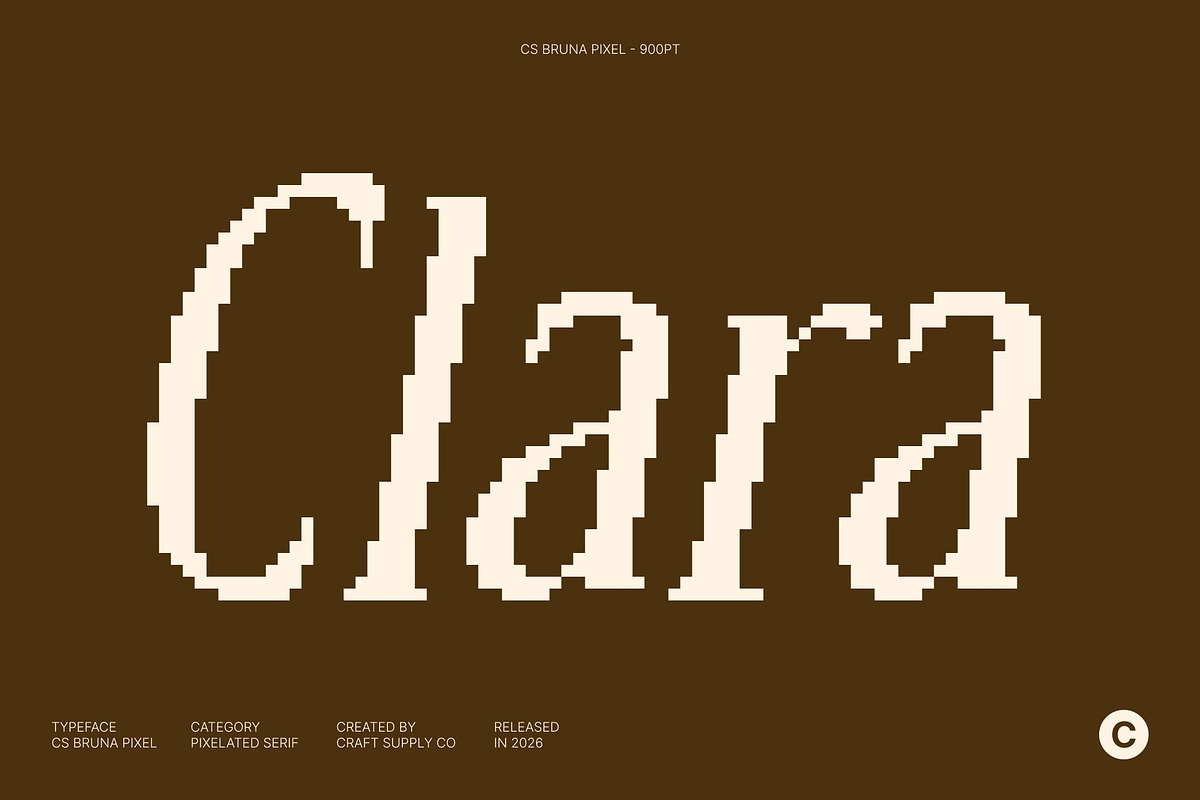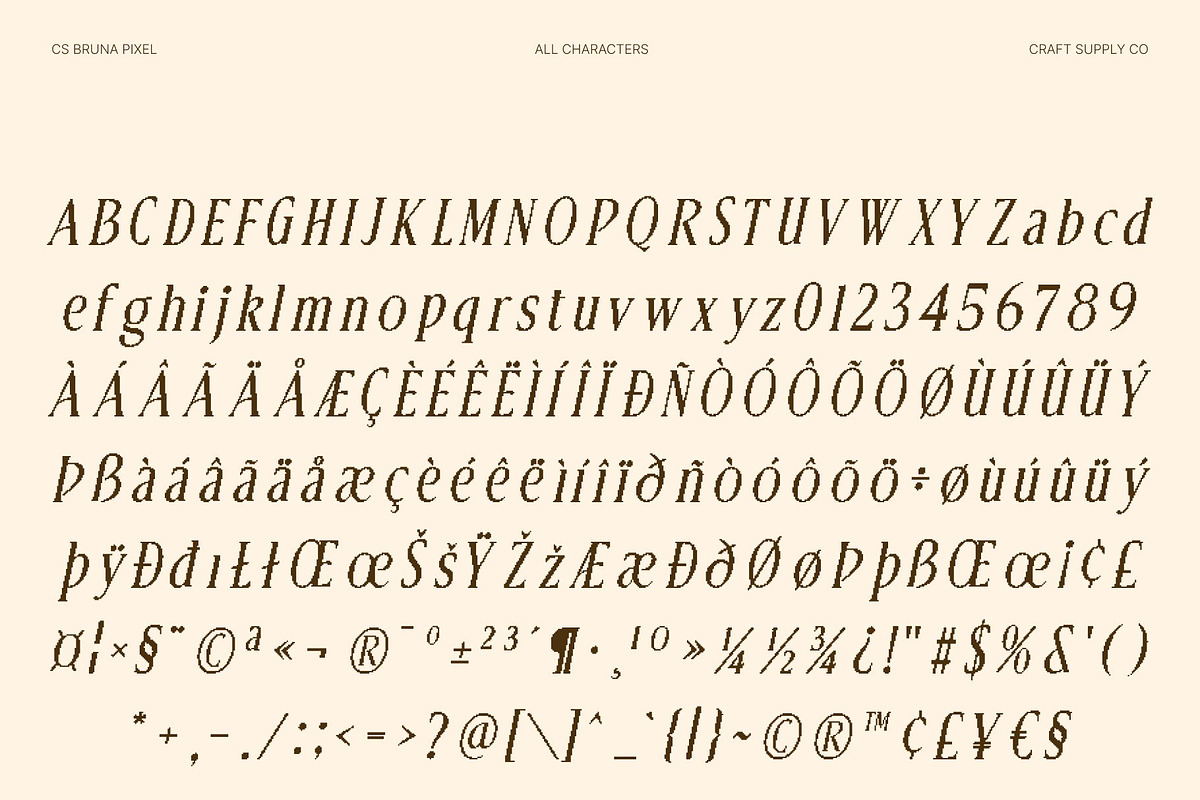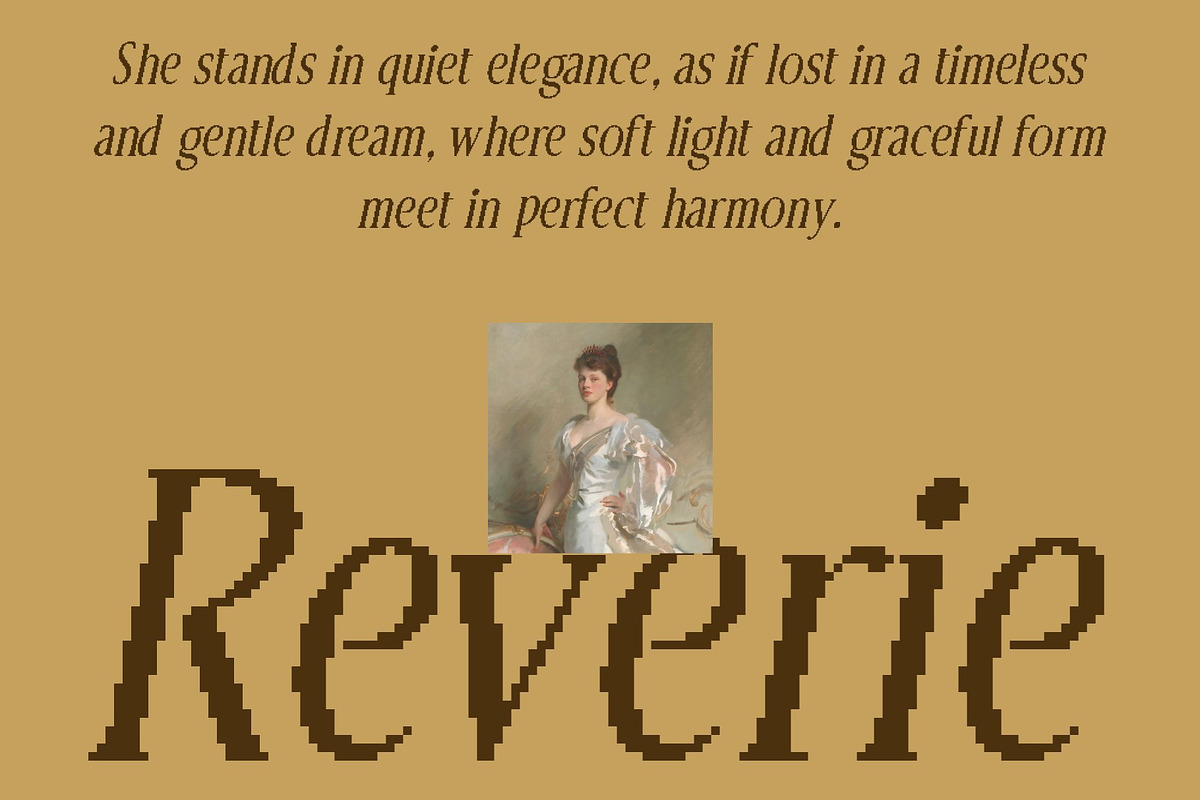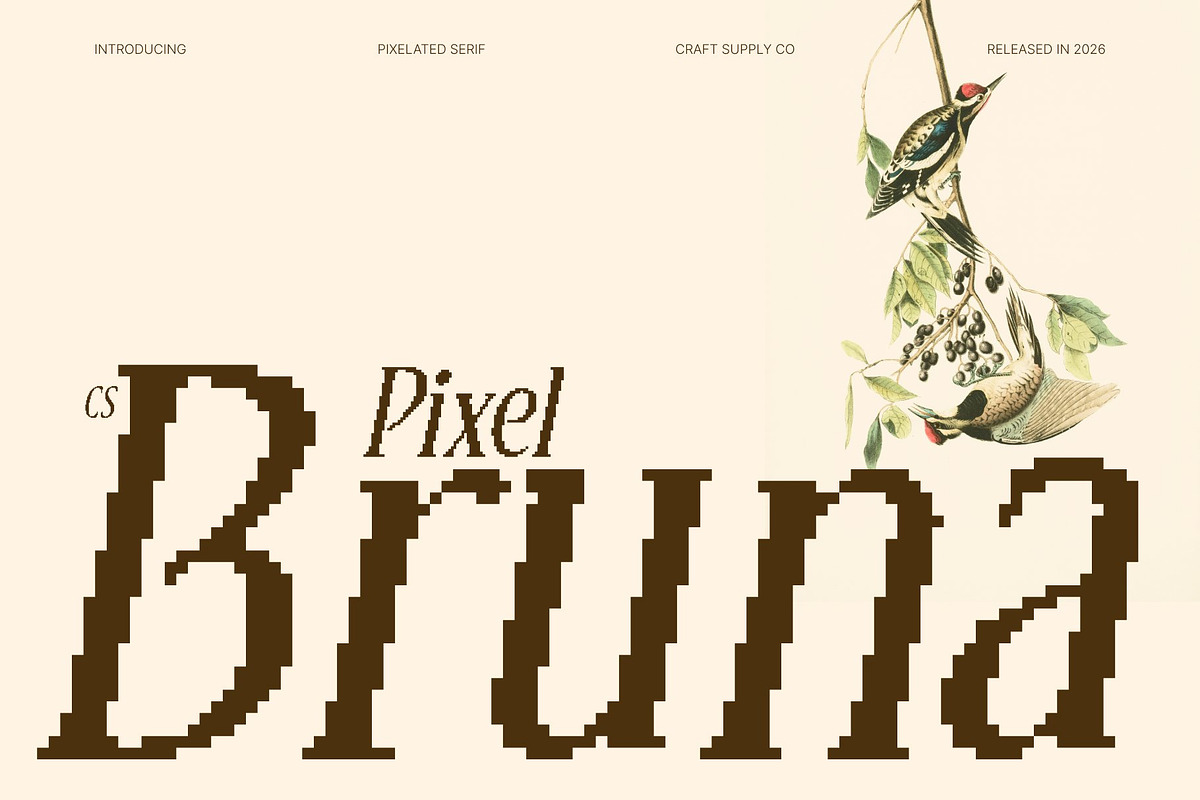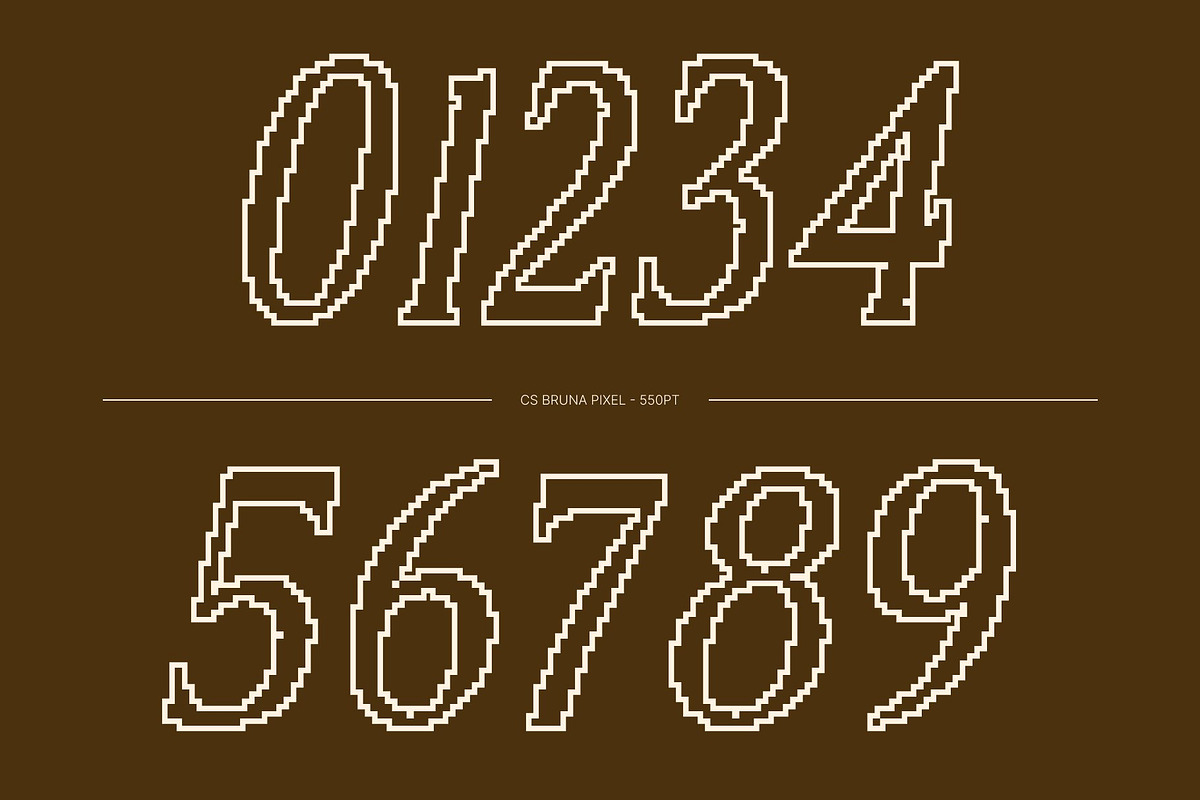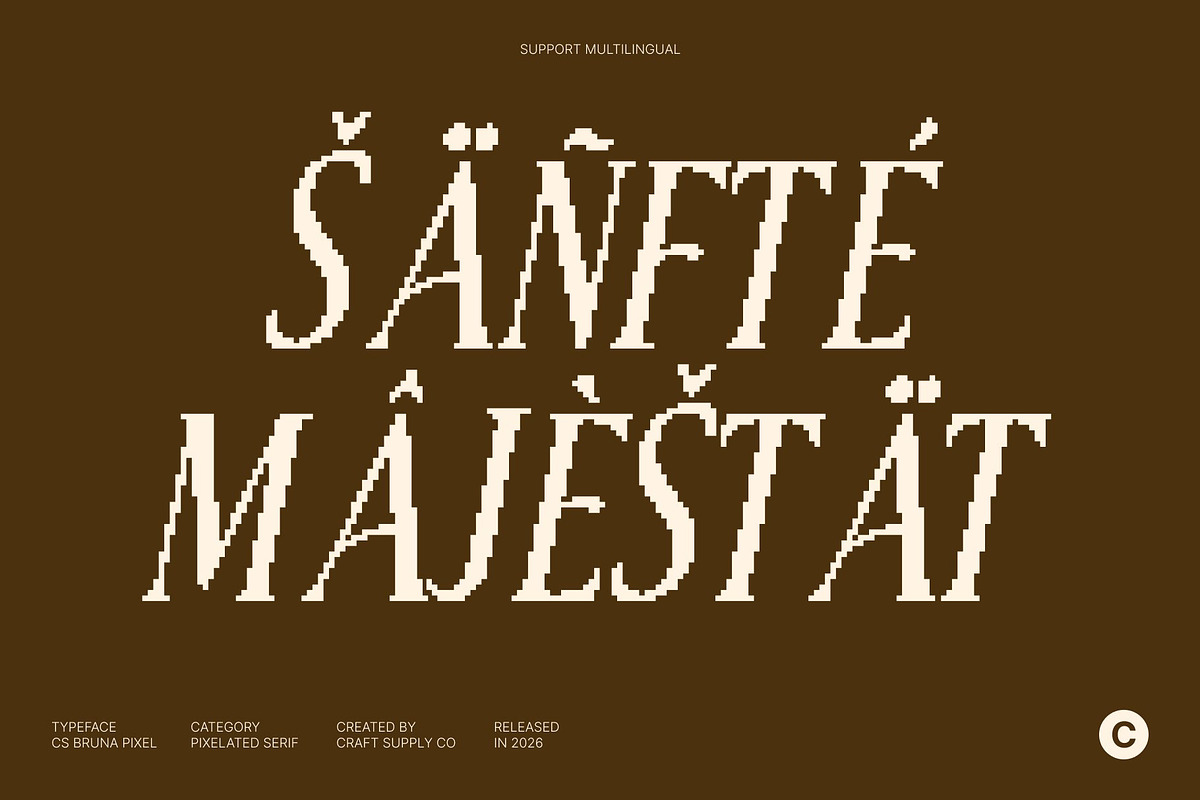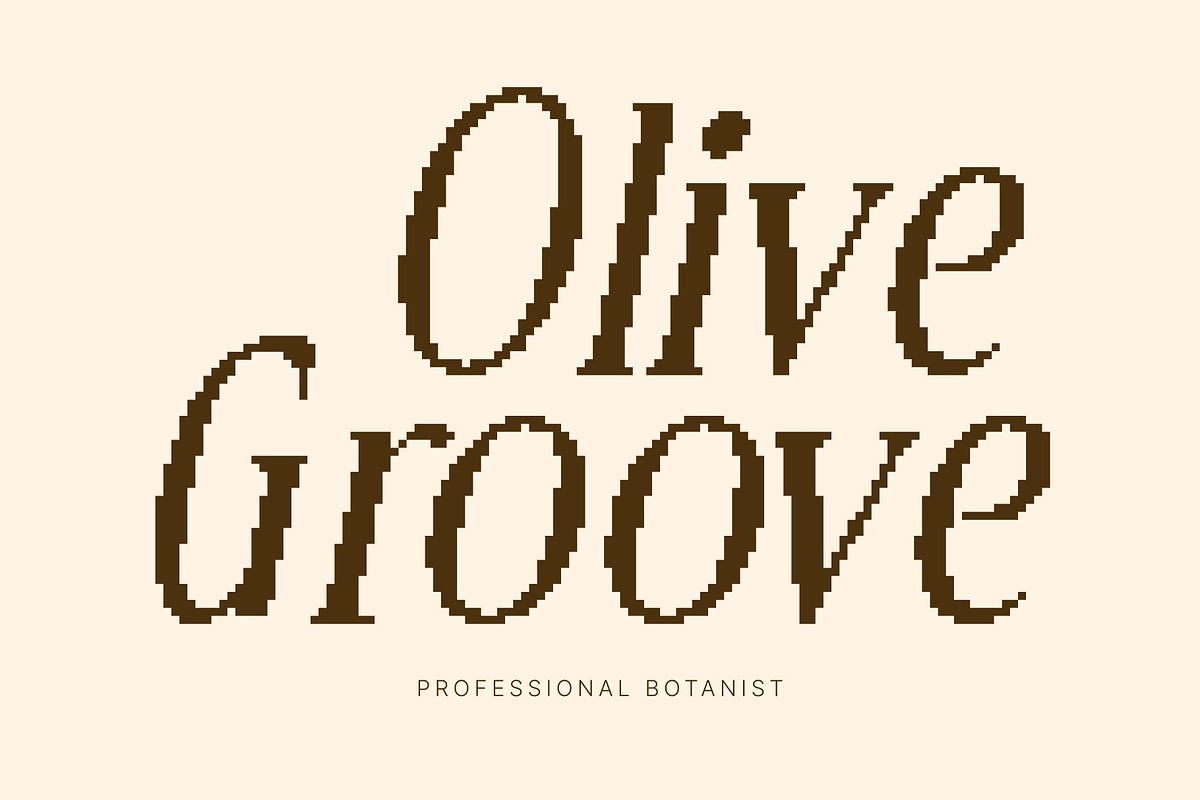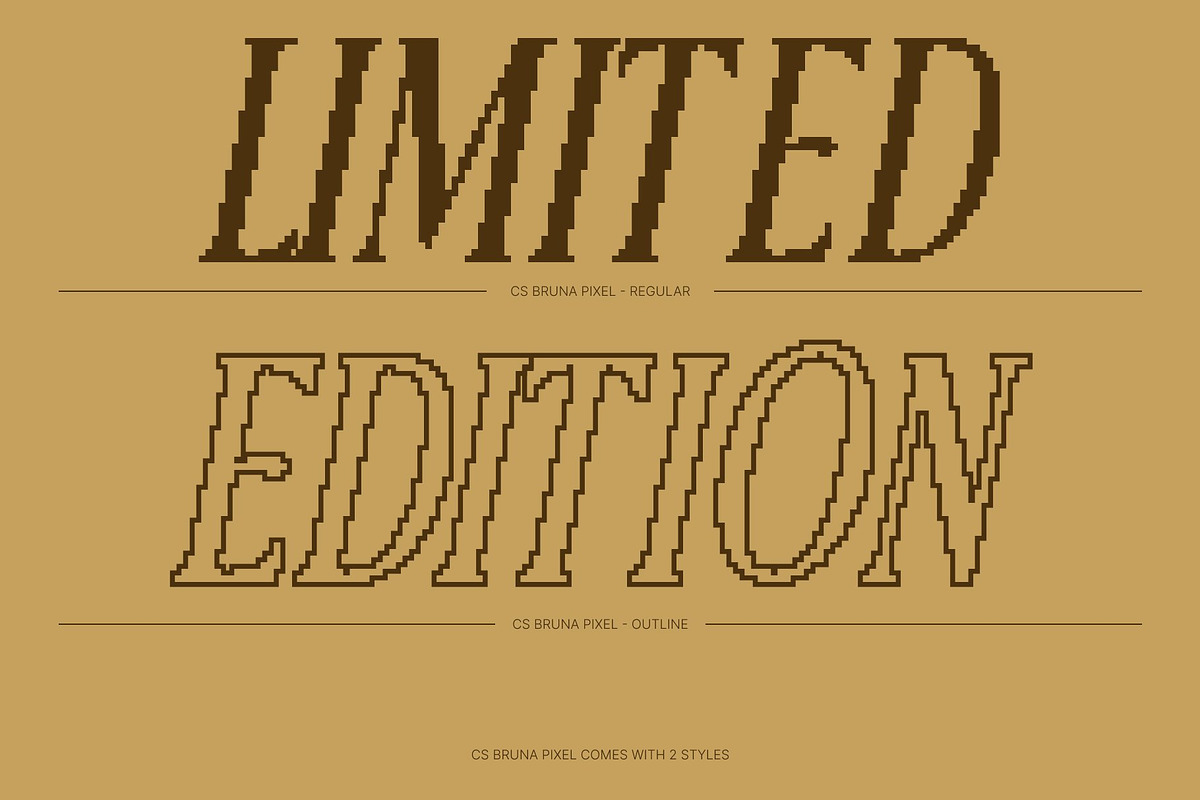
CS Bruna Pixel
CS Bruna Pixel – Refined Elegance in Pixel Precision
Elegant Serif Font with Digital Flair This font transforms modern high-end serif elegance into a pixel-perfect display font. Its sleek curves and elongated details retain sophistication while embracing a blocky, digital edge, making it ideal for retro technology aesthetics, digital interfaces, or pixel-inspired branding.
Pixelated Precision with Timeless Structure Each character is meticulously adapted to a grid, preserving refined proportions while adding crisp, pixel-aligned edges. The result is a font that balances contemporary elegance with a nostalgic digital feel perfect for headlines, game titles, UI design, or any project that merges luxury with technology.
Modern Luxury Meets Digital Charm With its pixel detailing, this font conveys sophistication in a bold, digital-friendly format. It brings clarity, professionalism, and a sense of precision, while the slight retro-tech aesthetic gives it personality and visual impact. This makes the font stand out across both digital and print mediums.
Perfect for Digital, Retro, and High-End Applications From pixel art interfaces and video game titles to tech-savvy branding and stylish editorial layouts, this font delivers elegance that pops in any pixel-based design. CS Bruna Pixel combines refined serif grace with eye-catching digital energy, creating visuals that feel polished, modern, and unmistakably tech-forward.
- CS Bruna Pixel Regular
- CS Bruna Pixel Outline